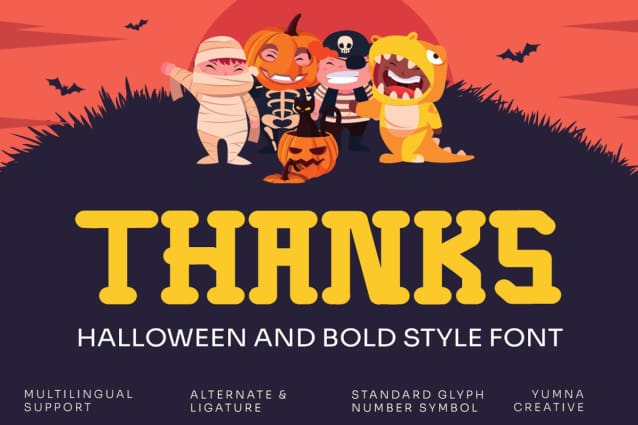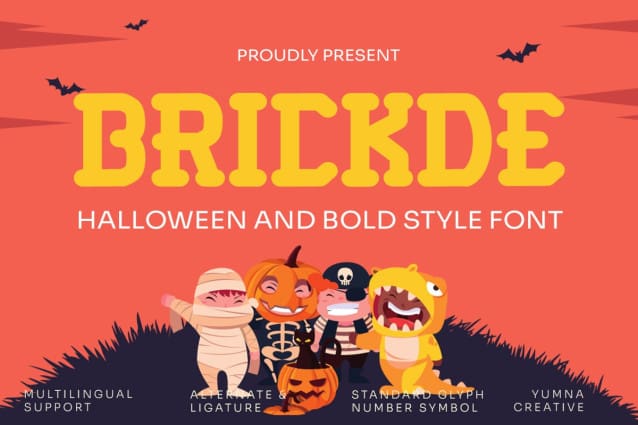
Brickde Display Font
Brickde Display Font, Perfectly fit for branding, logo, wedding things, greeting cards, fashion, lookbook, marketing promotion, anytime you want to look fancy elegant but still casual.